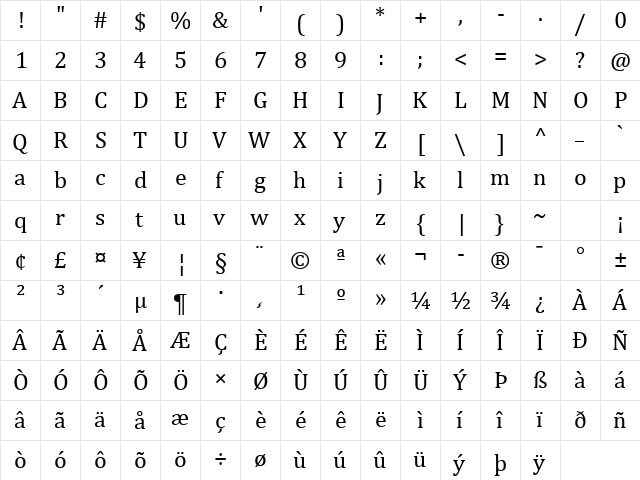
Cambria Regular
| Foundry | Microsoft Corporation |
| Designer | Agfa Monotype Corporation |
Design Context for Cambria Typeface
Cambria is a composed and adaptable typeface that performs quietly and consistently across a wide range of design contexts.